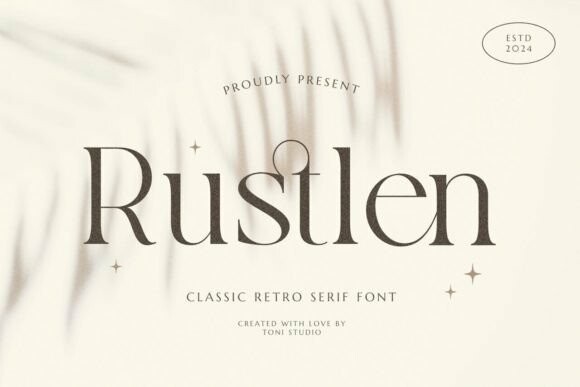
Rustlen Font
Rustlen Font, which is a font we created in a trendy, elegant, retro & modern style for your new luxury project. Rustlen is stylish, creative, and classic. Perfect for any modern or classy branding project. Many alternatives and binders will help you create a unique and original logo or website header design! Have fun with Rustlen.